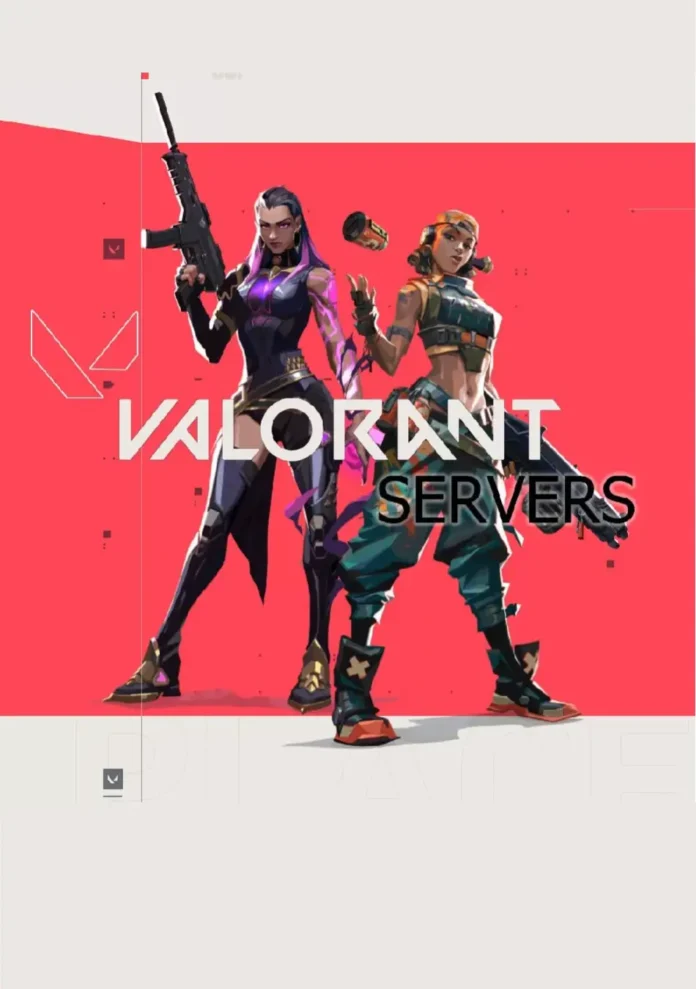
Valorant Font
The Valorant font used on the Valorant game logo is custom-made by designers. So it isn’t available. But a fan named Bryan T. recreated the font and named it Valorant. If you want to get glyph variants for A, V, M, and N, use uppercase/lowercase. You can also download the font for free from our website now.
Is this the exact font used for Valorant?
Not exactly. The original lettering was custom drawn or is not publicly licensed, so the fonts here are close recreations. Valorant-font is the nearest match we have found.